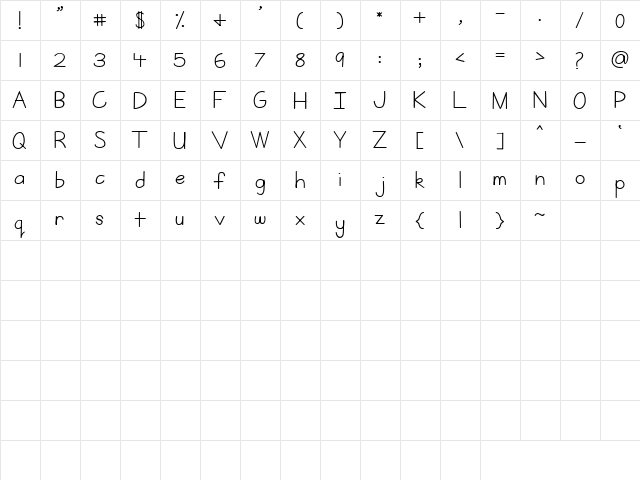
LD Fine Print 13 Regular
Design Context for LD Fine Print 13 Typeface
LD Fine Print 13 is a composed and adaptable typeface that performs quietly and consistently across a wide range of design contexts.